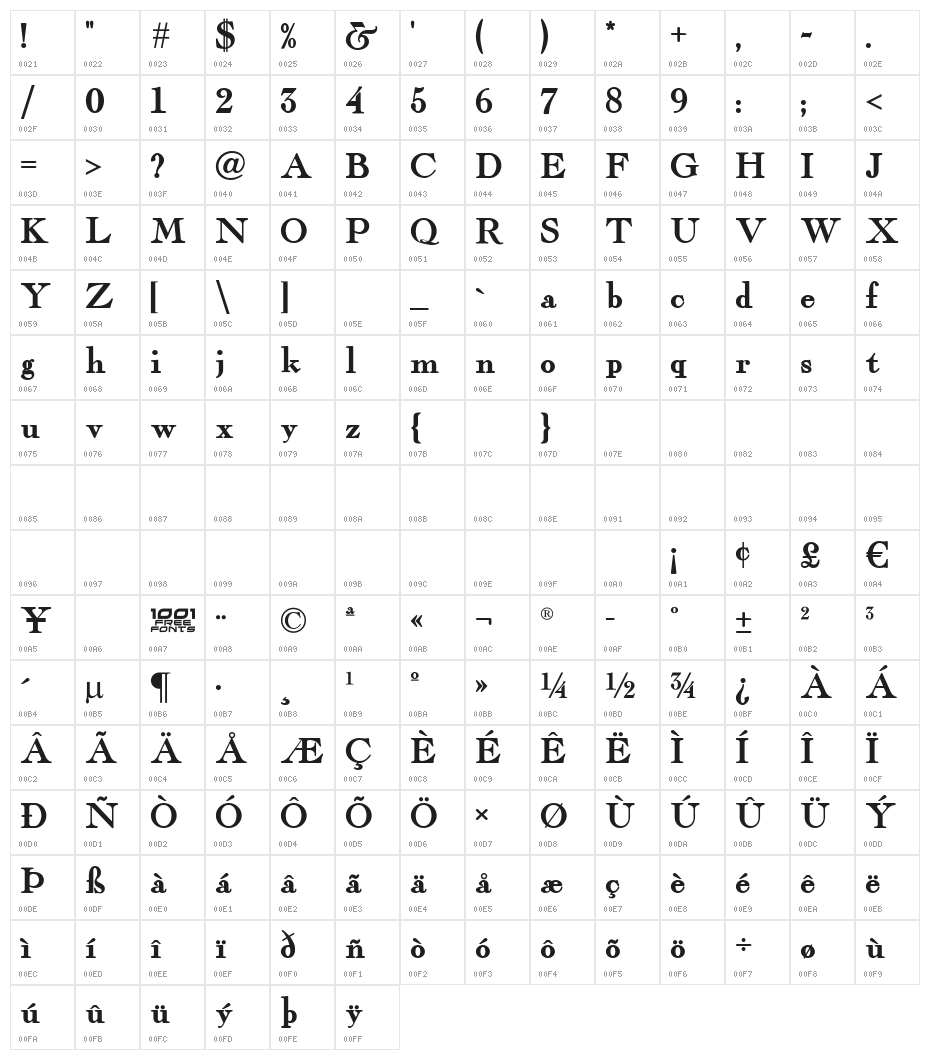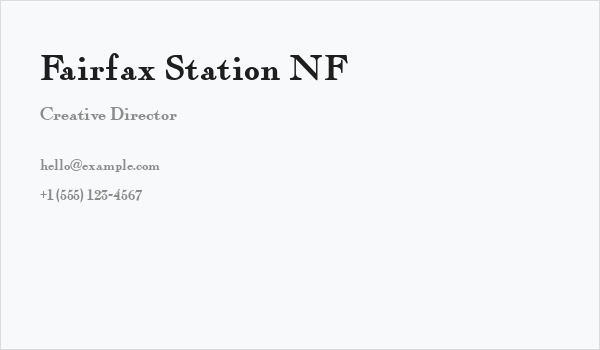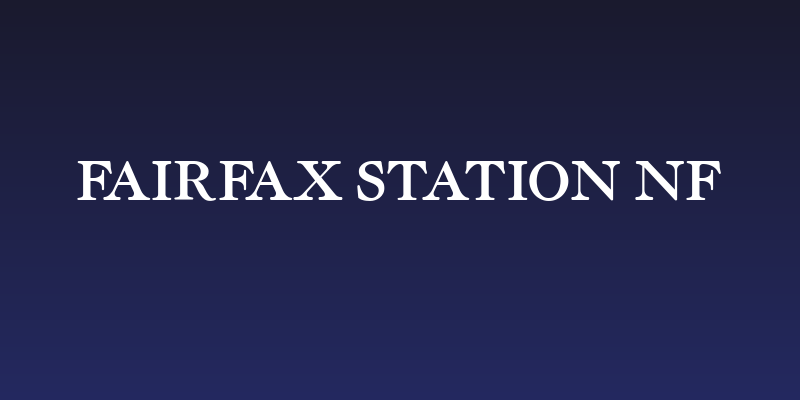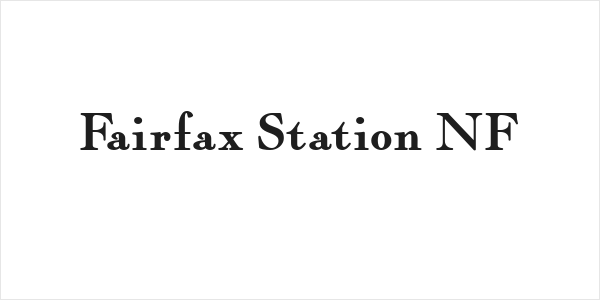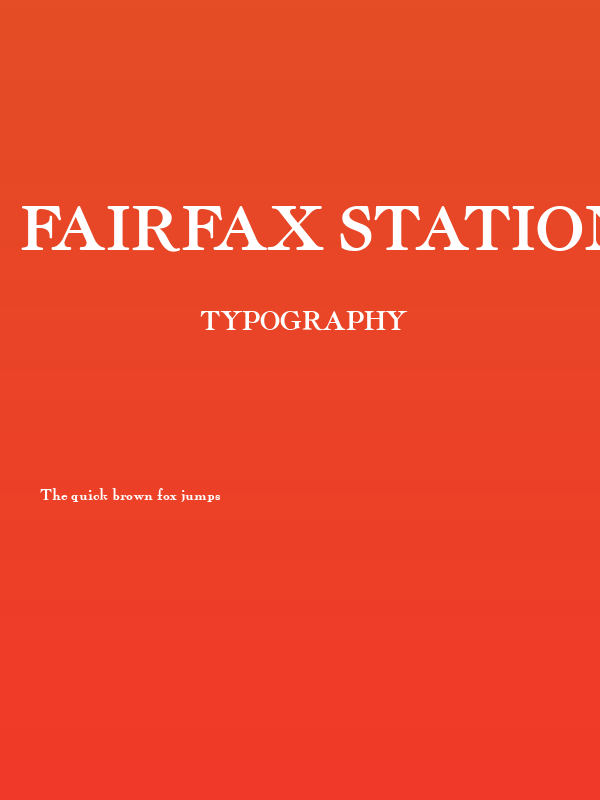
Fairfax Station NF Font
Fairfax Station NF Description
This font exudes a classic and elegant style, characterized by its strong serif presence and balanced proportions. The uppercase letters are bold and commanding, while the lowercase letters maintain a consistent and harmonious flow. The numerals are clear and distinct, ensuring readability. Special characters are well-integrated, adding versatility to the font's usage. The overall design is reminiscent of traditional serif fonts, yet it maintains a modern touch that makes it suitable for a variety of applications.
| Proposed Projects | Ideal for editorial design, book covers, formal invitations, and branding projects that require a touch of elegance and tradition. |